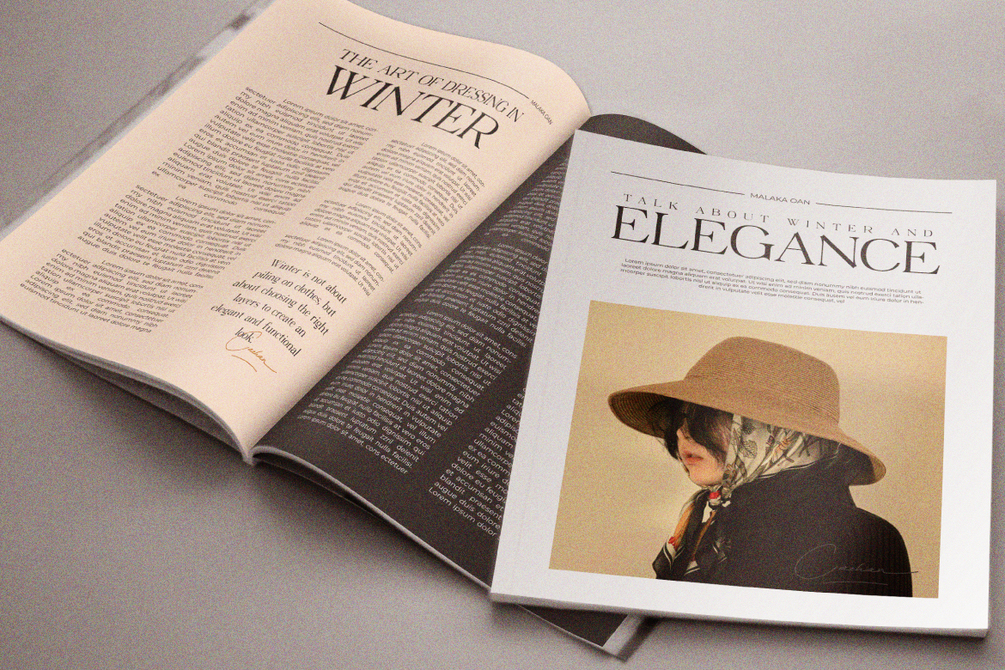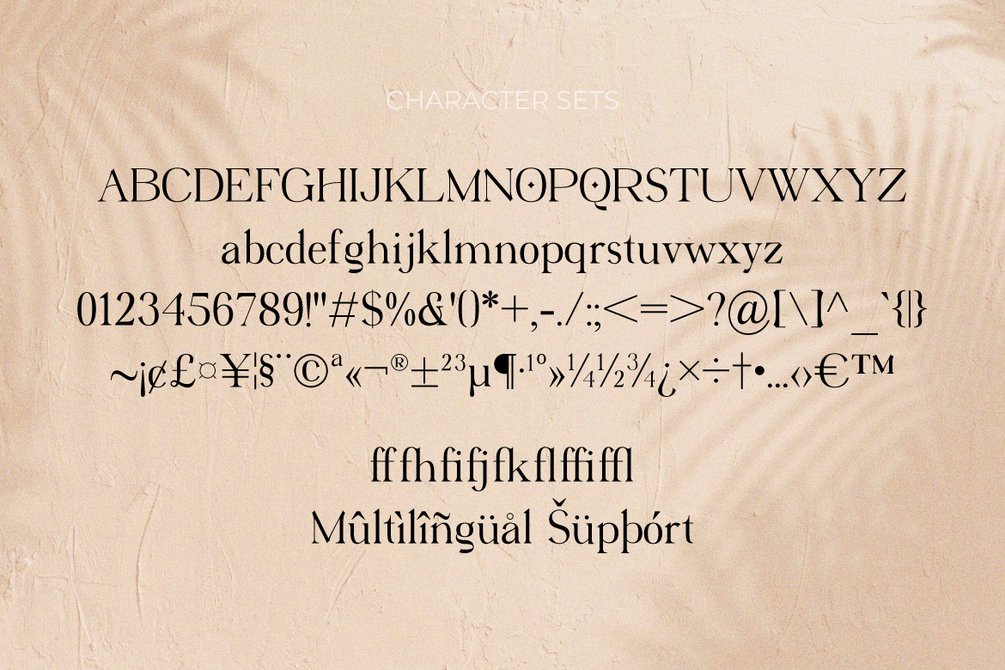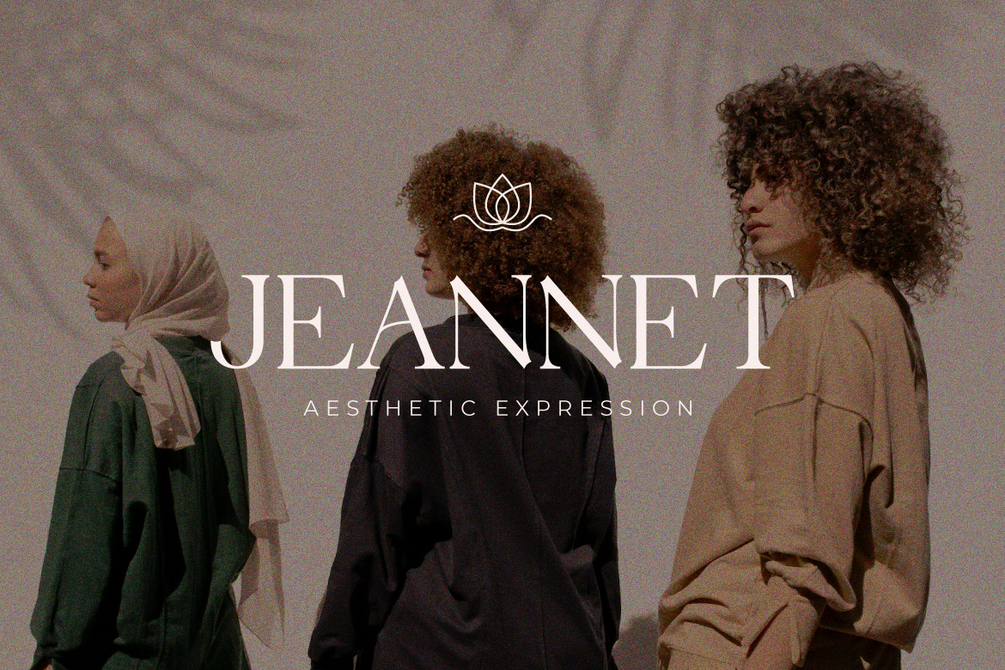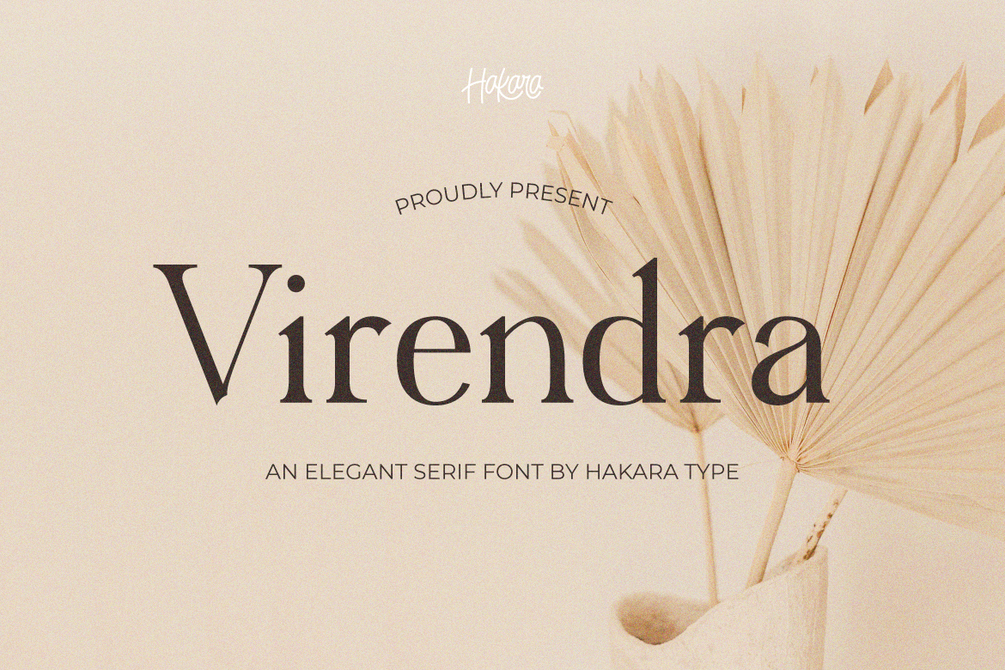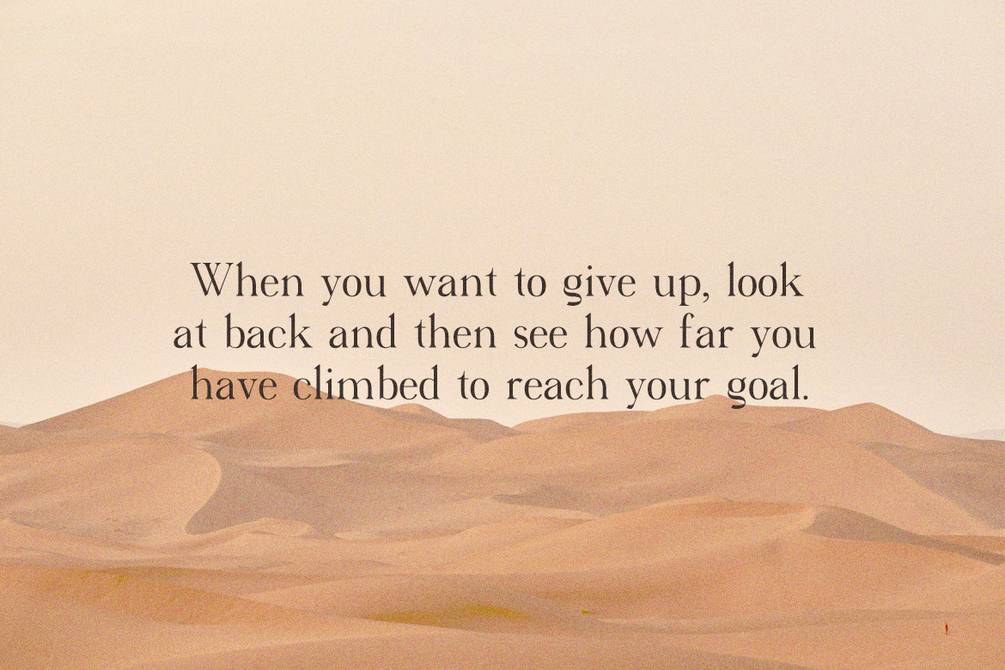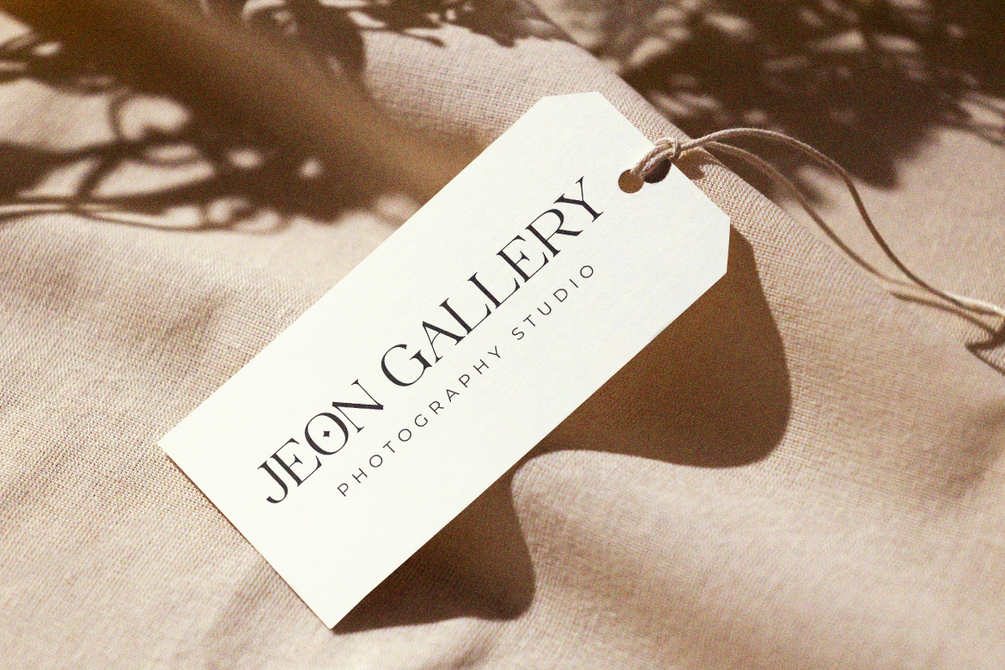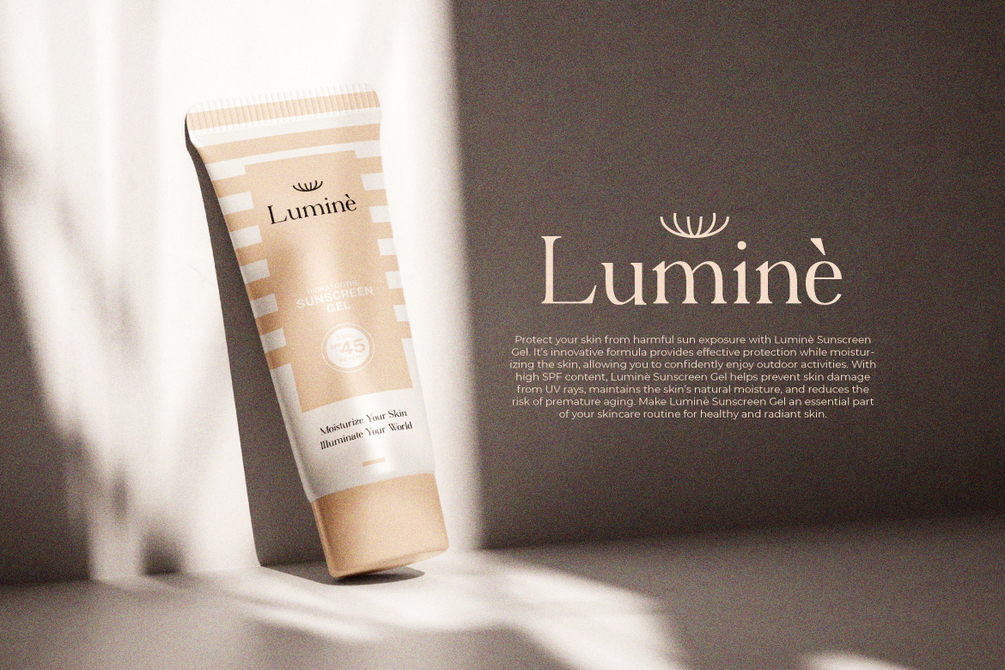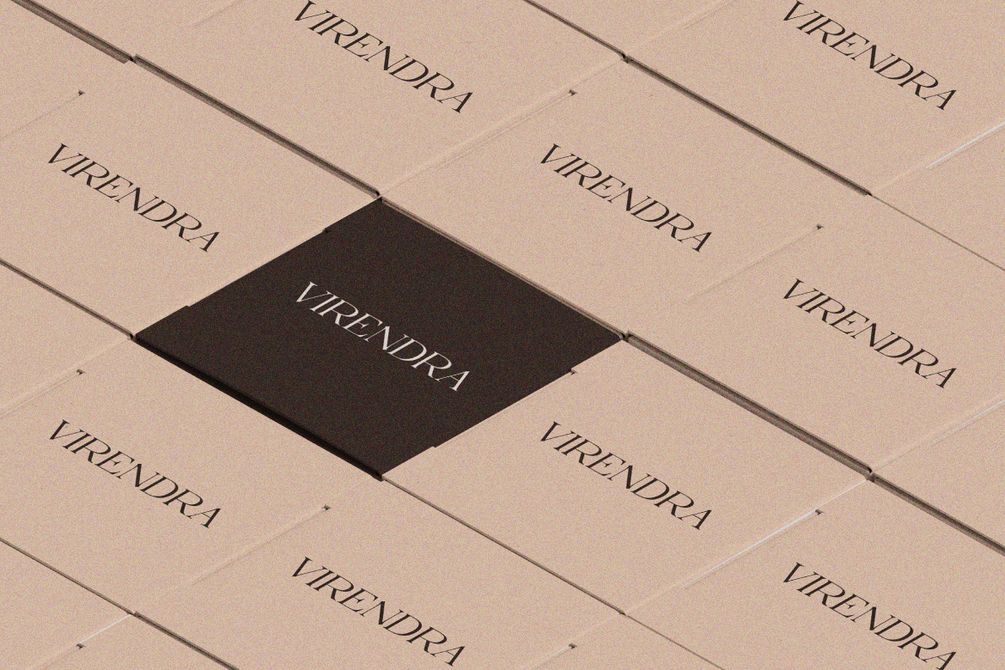
Virendra Modern Serif - Free Font
Virendra font is a visual embodiment of timeless beauty and captivating simplicity. With a classic touch through its unique curved serifs, this font exudes a timeless charm and versatility across various design contexts. The softness of its letters resembles gentle notes in history, showcasing that beauty remains untouched by time.
Virendra comes with uppercase, lowercase, numbers, standard function, and included multilingual support. You can see which languages are supported by Virendra here.
Virendra Pro - Modern Serif Font
Virendra Pro is an elegant serif font that blends classic style with a modern touch, creating a captivating and refined aesthetic. Each glyph is meticulously designed with unique details, offering a fresh and graceful look through the swash curves of its alternate characters and ligatures.
This font comes with multilingual support, making it suitable for global projects, and web font compatibility, making Virendra Pro a perfect choice for both digital and print designs.
Ideal for branding, editorial work, invitations, or any other creative projects, Virendra Pro adds a luxurious and professional character that elevates the visual quality of your designs.
Unleash your creativity with the versatility of Virendra Pro and make every project stand out!
Virendra Pro comes with uppercase, lowercase, numbers, function, alternates, ligatures, and included multilingual support. You can see which languages are supported by Virendra Pro here.